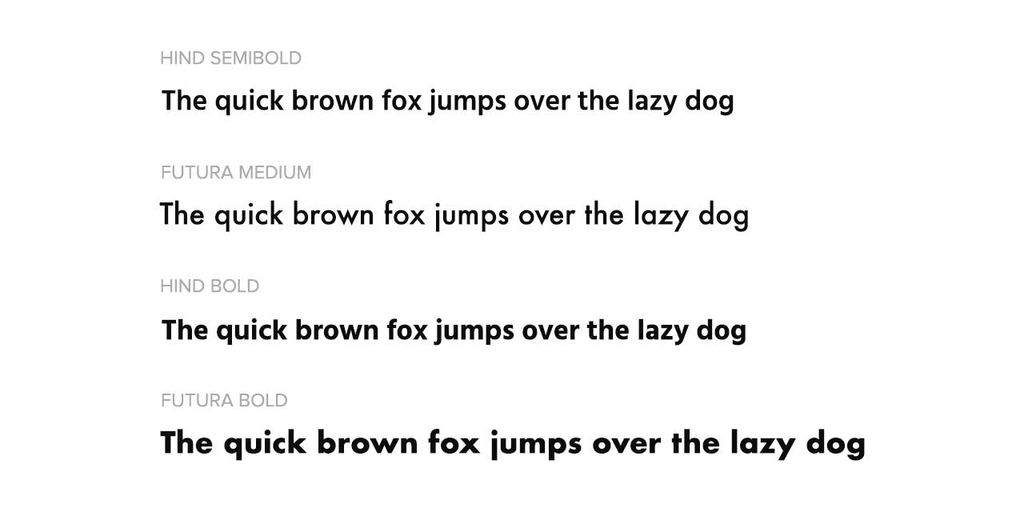
Google Fonts Similar To Futura
Google Fonts Similar To Futura - Poppins has some differences, but still good and free. League spartan is almost identical and free from google fonts. Making the web more beautiful, fast, and open through great typography